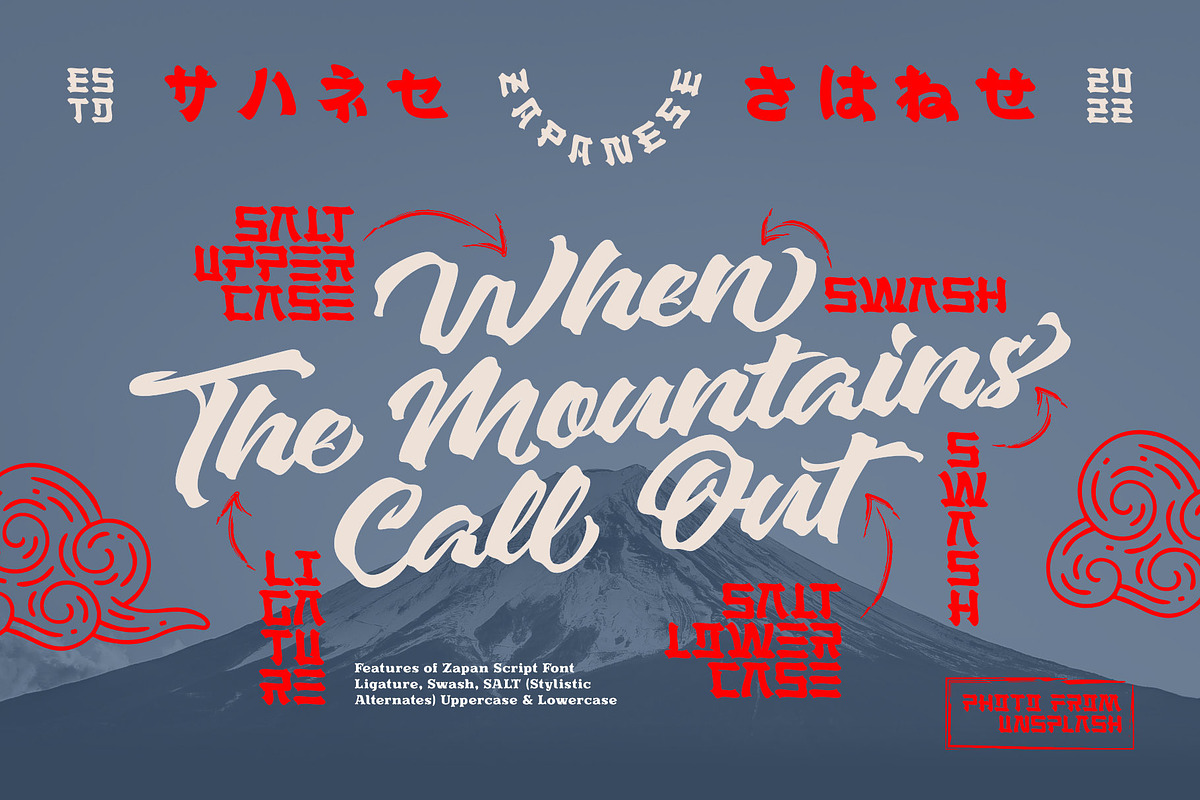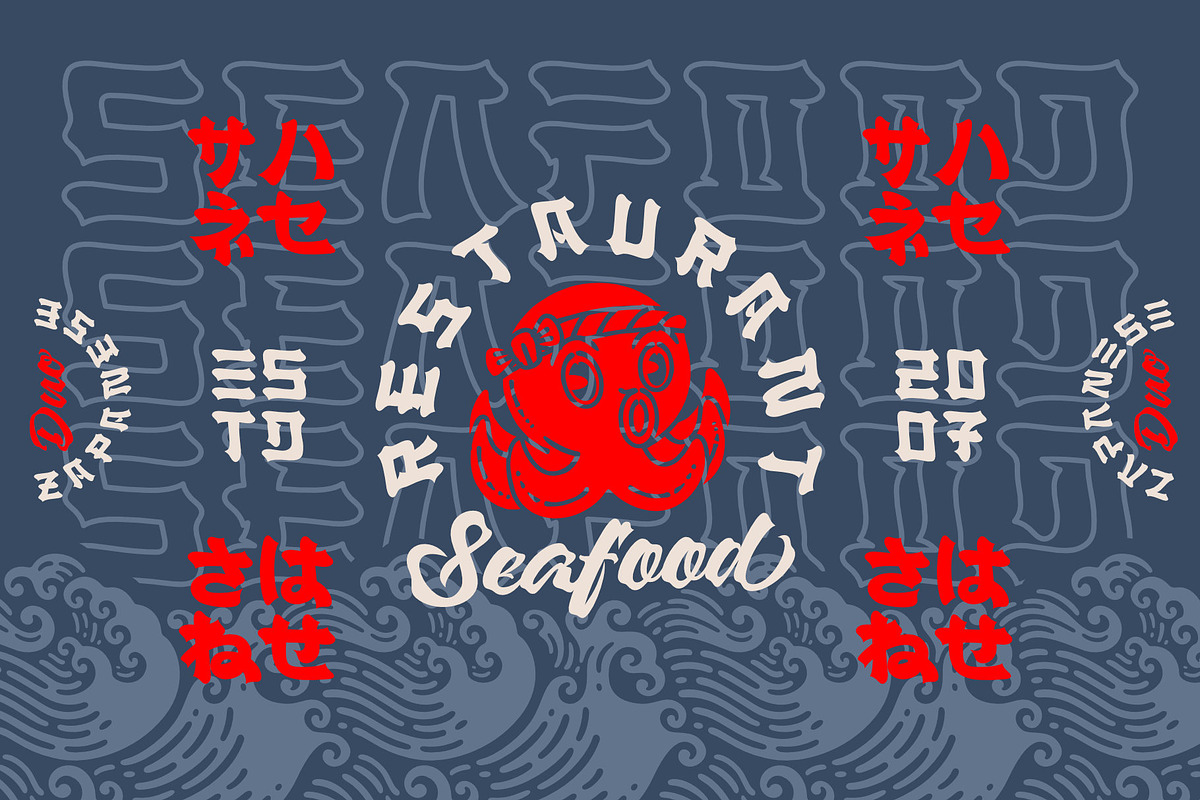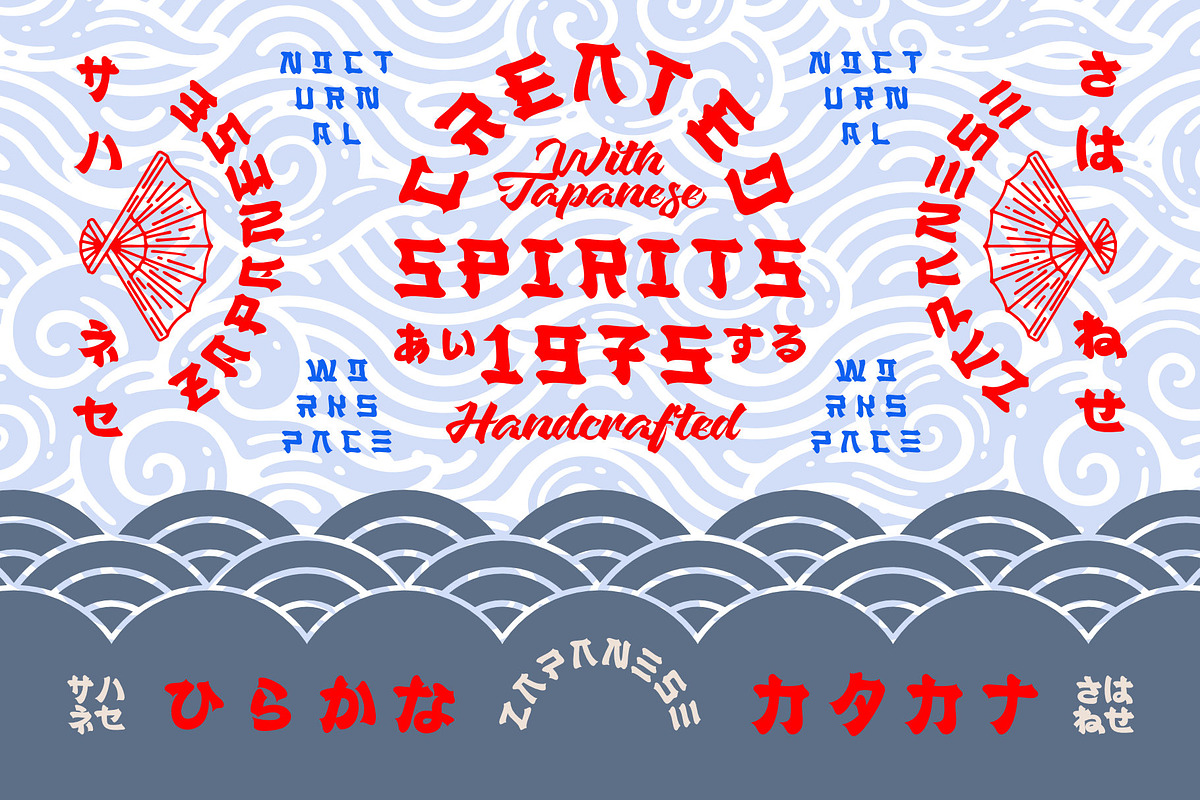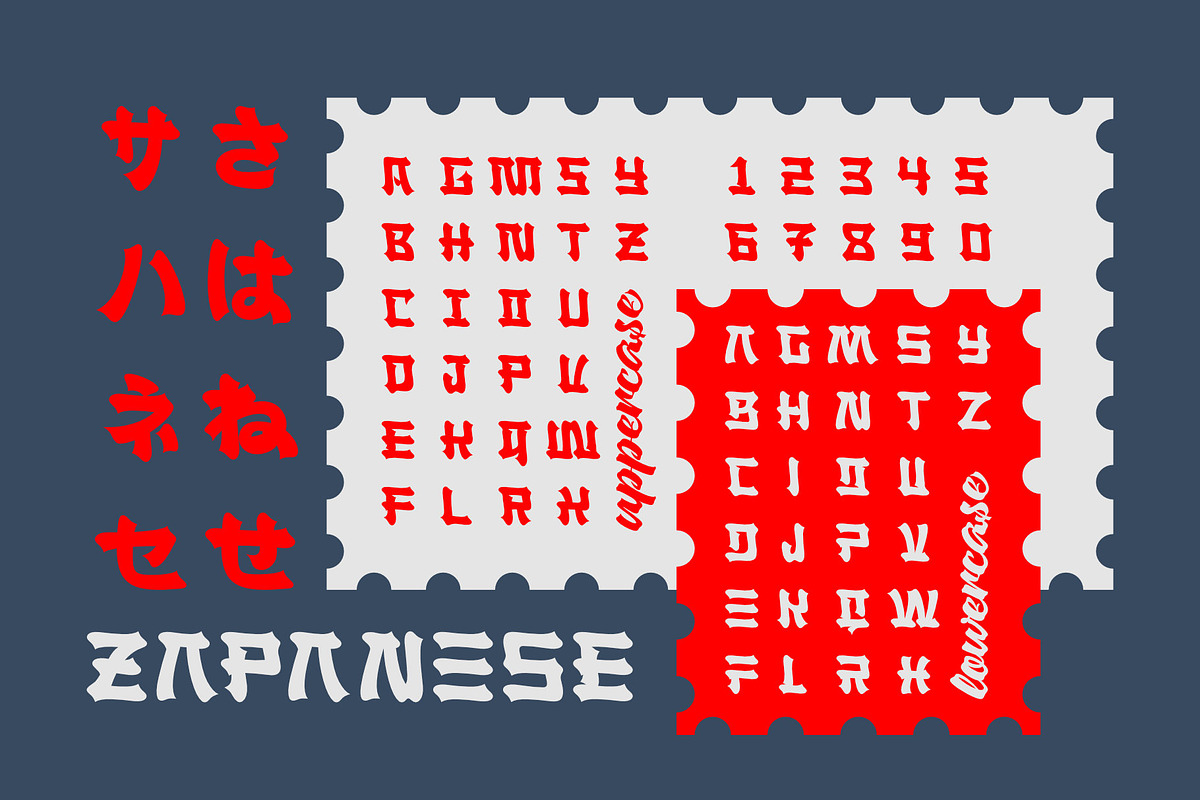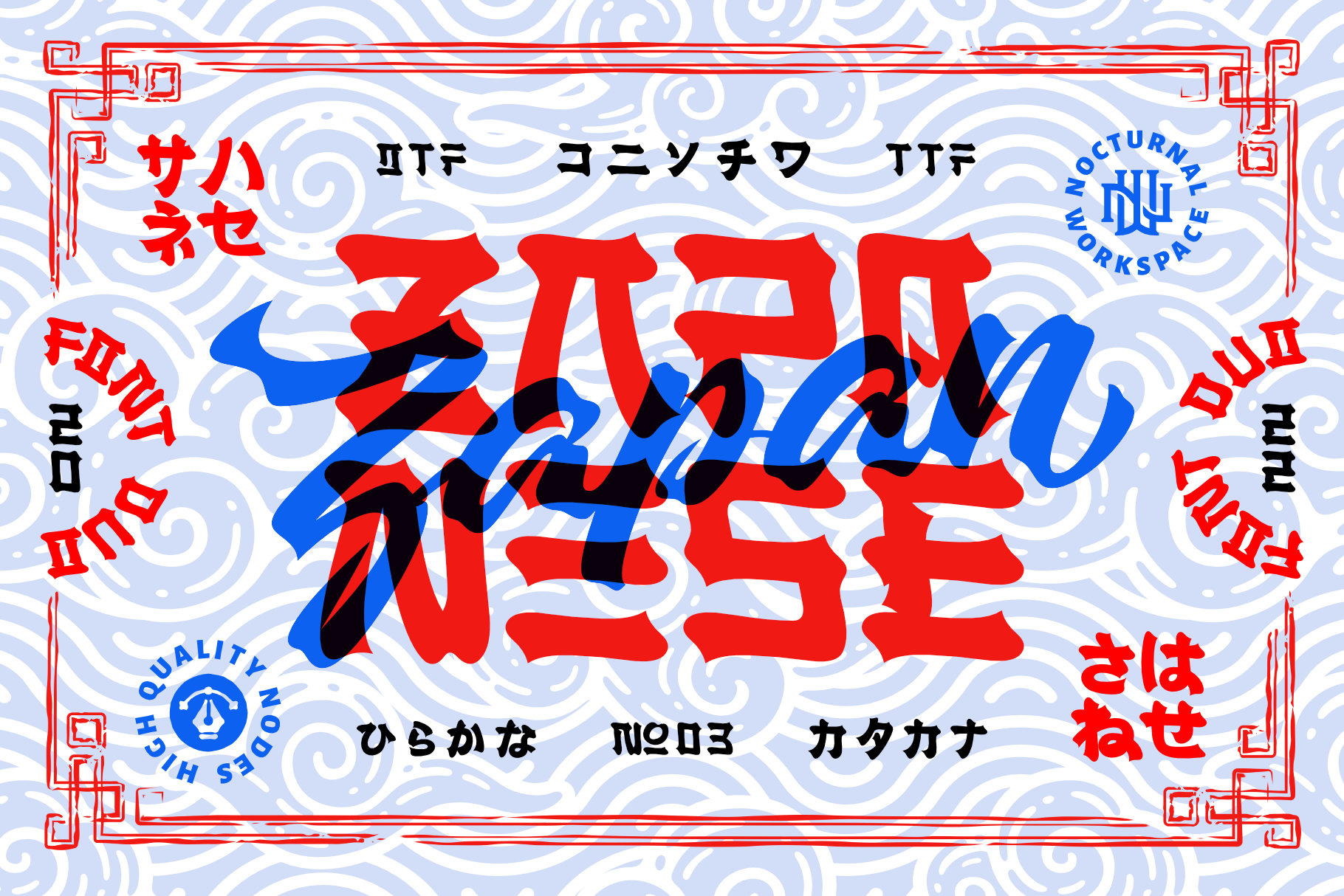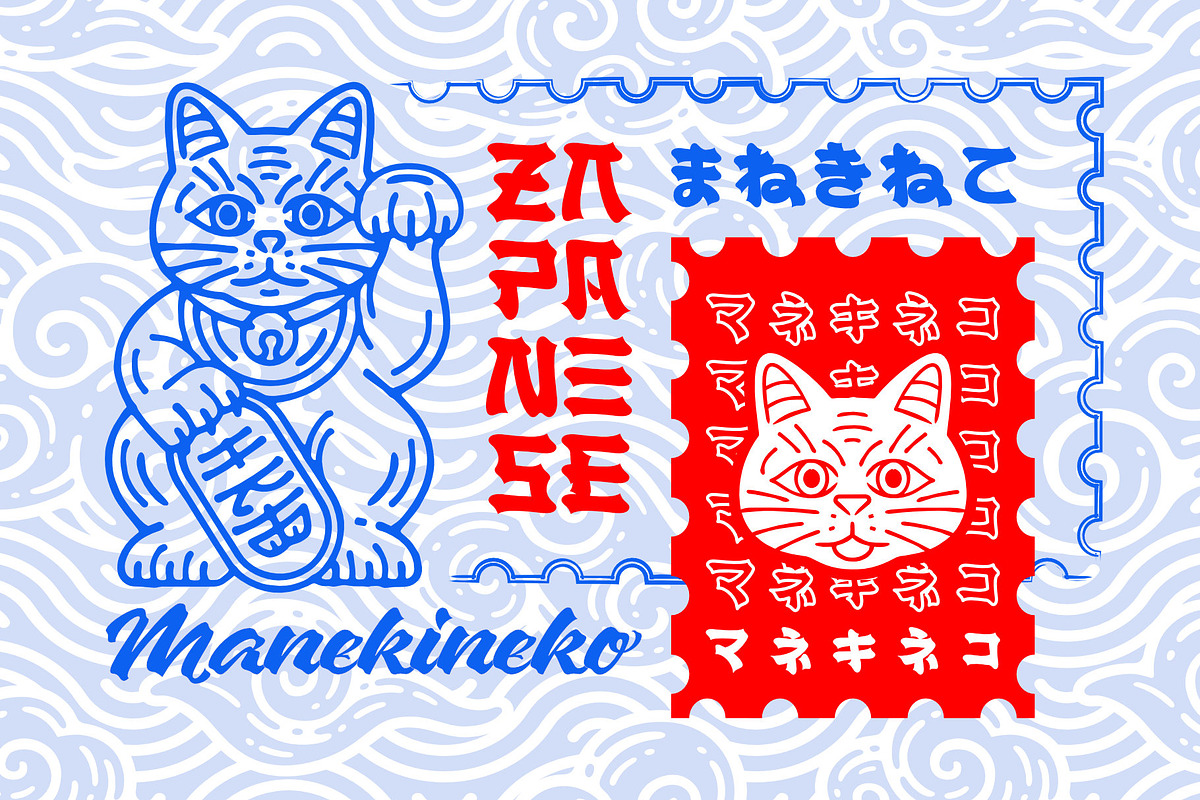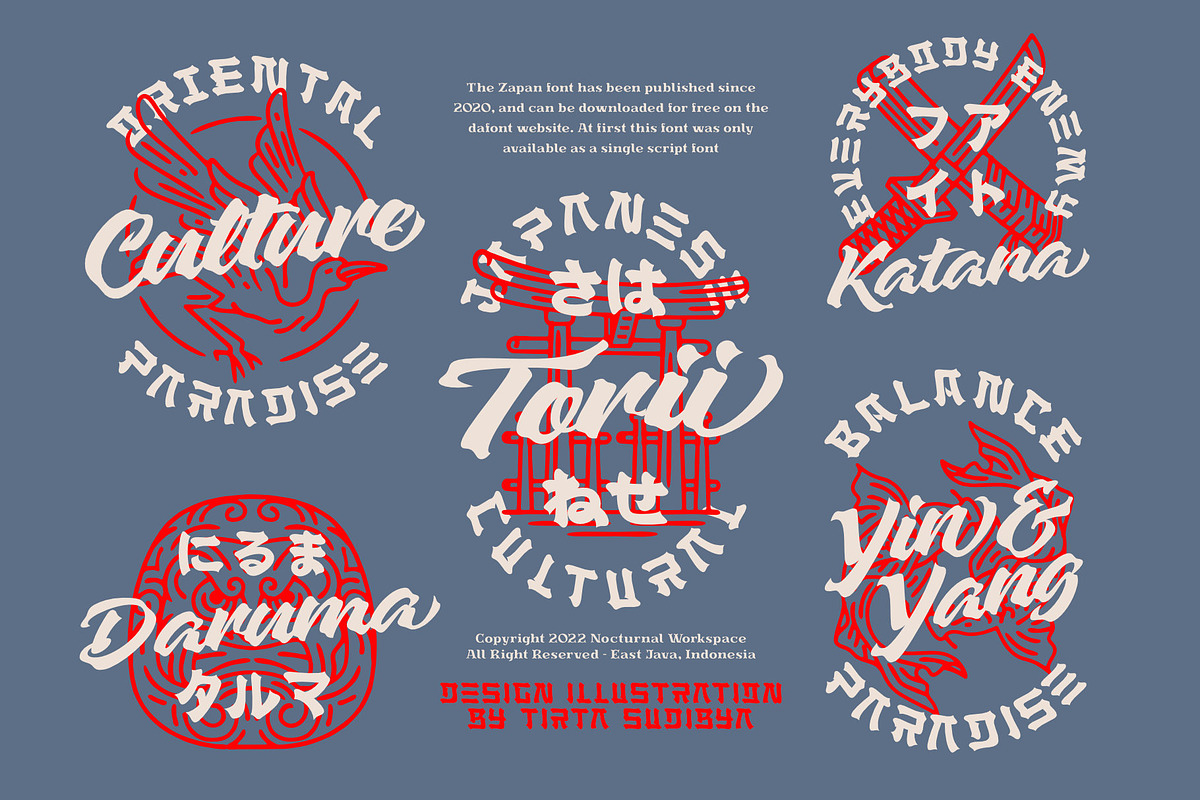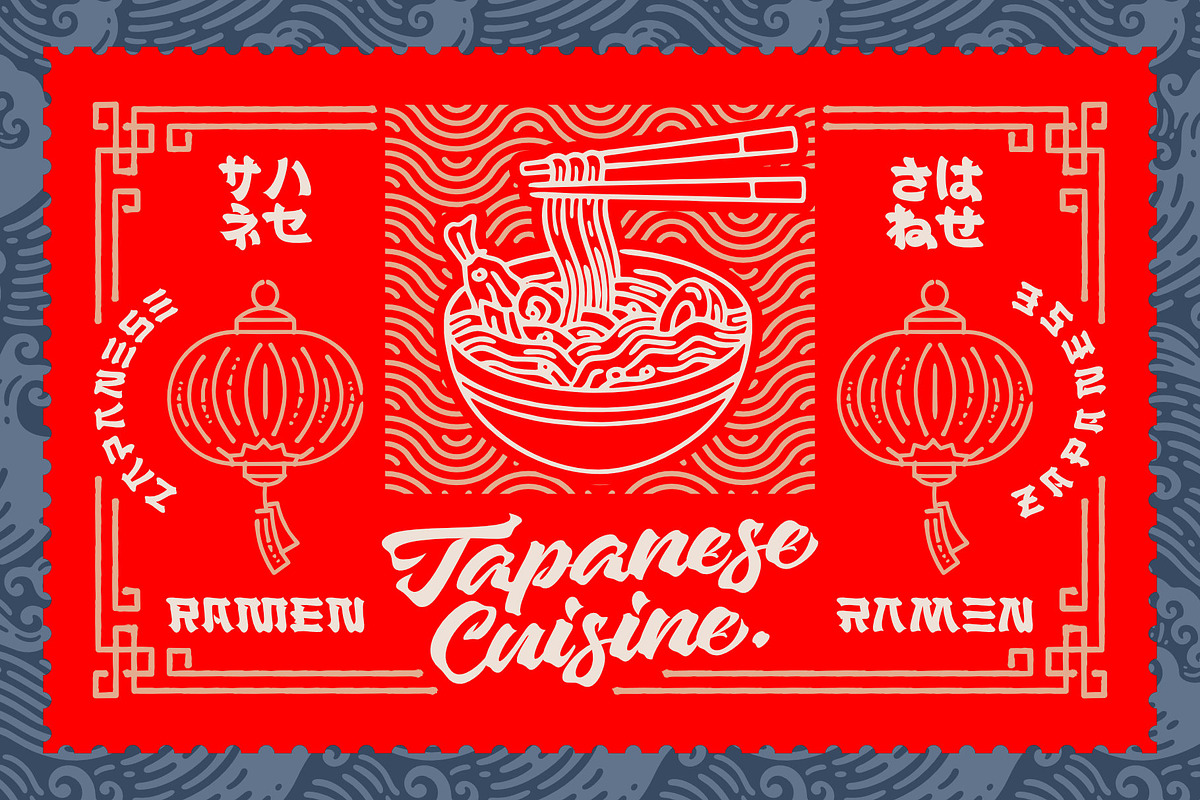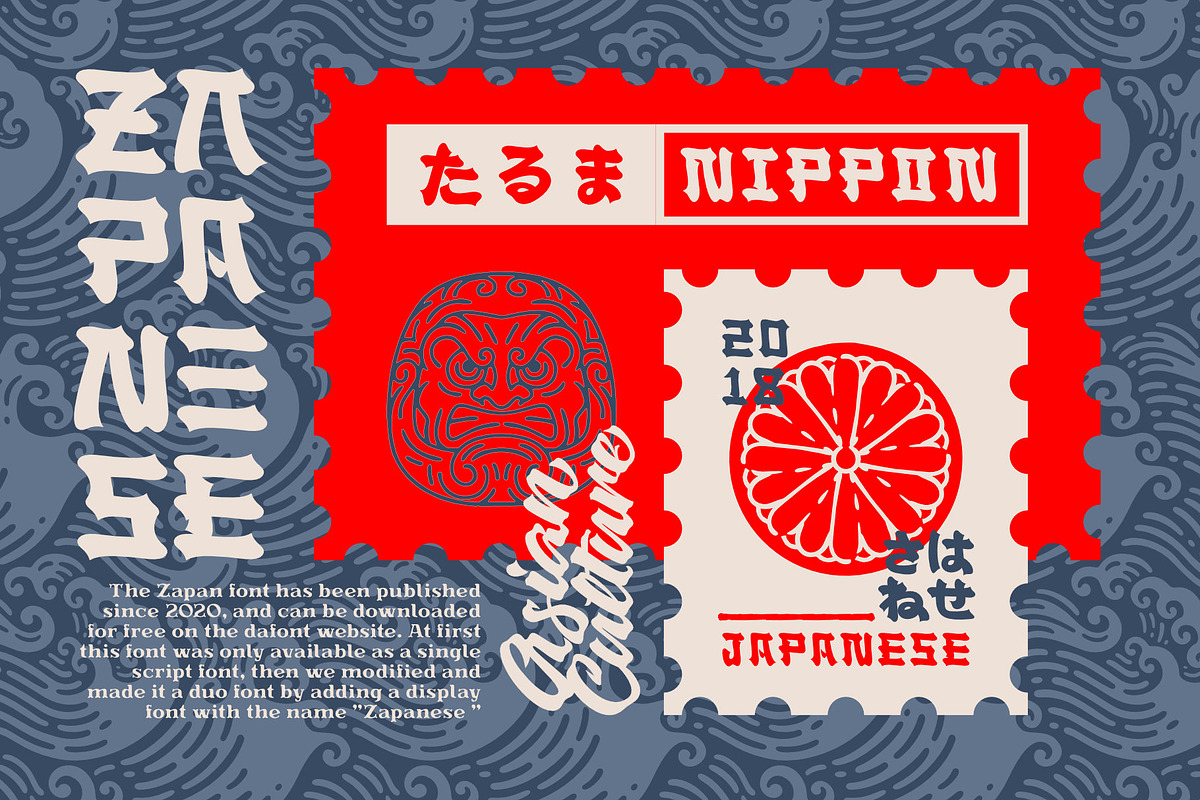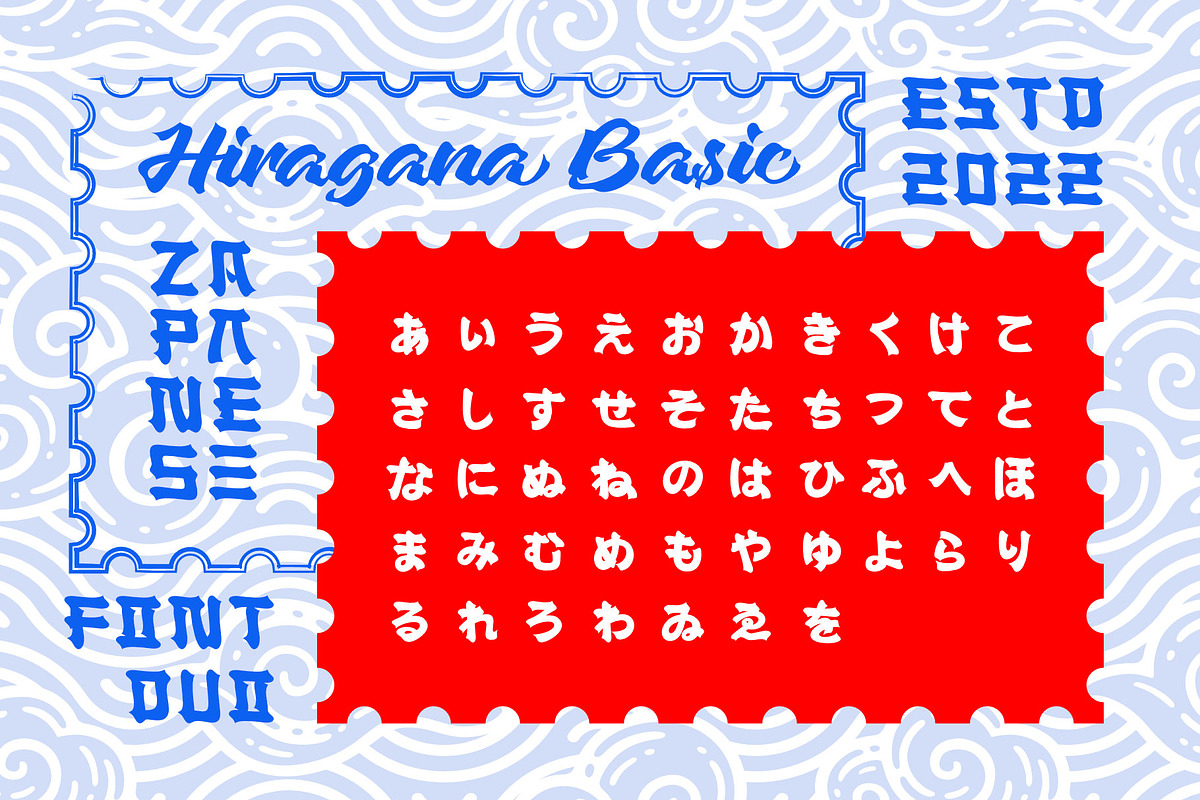
Zapanese Font Duo - Japanese Vibes
Introducing Zapanese Font! 🌸✨A flawless fusion of traditional Japanese elements and modern design. Perfect for adding an authentic touch to your projects.
- Support Glyphs Basic Hiragana & Basic Katakana
Zapanese is suitable typeface for various purposes like logotype, signage, label, poster, dropcap, titles, letterhead, book cover and etc.